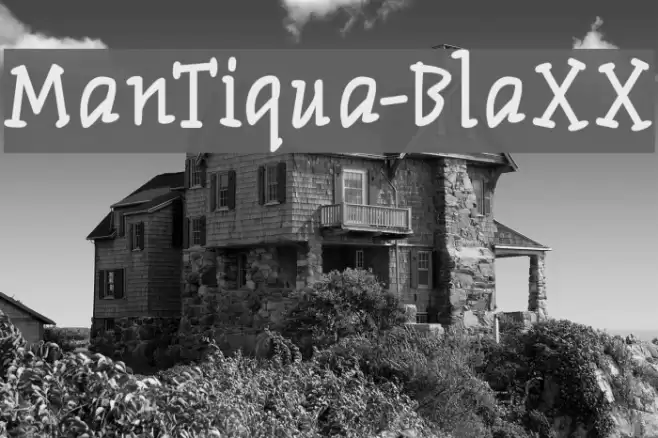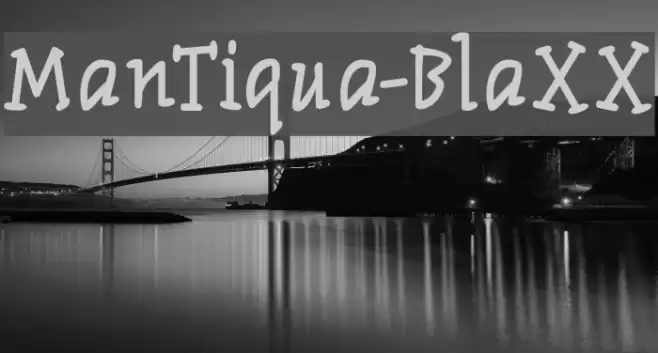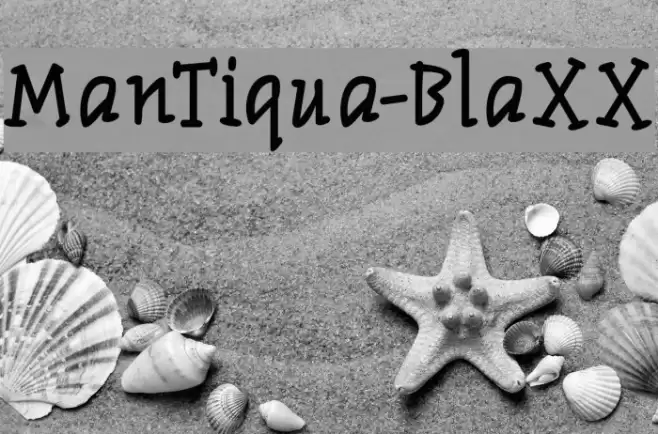
ManTiqua-BlaXX Font
ManTiqua-BlaXX Description
This font features a playful and dynamic style, characterized by its irregular and slightly whimsical letterforms. The uppercase letters exhibit a bold and confident presence, while the lowercase letters maintain a consistent flow with a touch of casual flair. The numerals are distinct and easy to read, complementing the overall aesthetic. Special characters are creatively designed, adding to the font's unique personality. The strokes are moderately thick, providing a strong visual impact without compromising readability. This font is perfect for projects that require a fun and engaging look.
A playful and dynamic font with whimsical letterforms and bold strokes from Uncategorized fonts.
- Proposed Projects: Ideal for children's books, playful branding, greeting cards, and creative posters.
- Overall Style: Playful